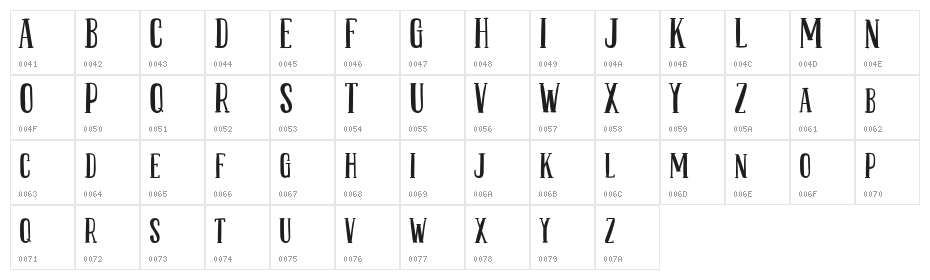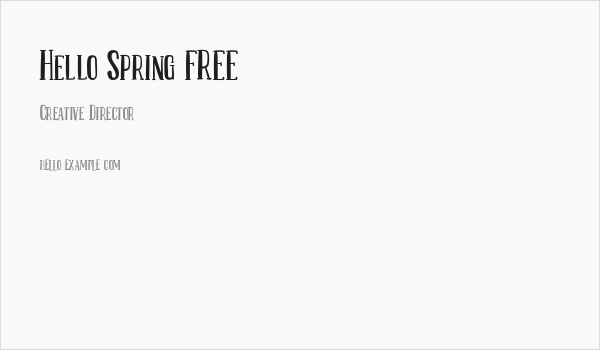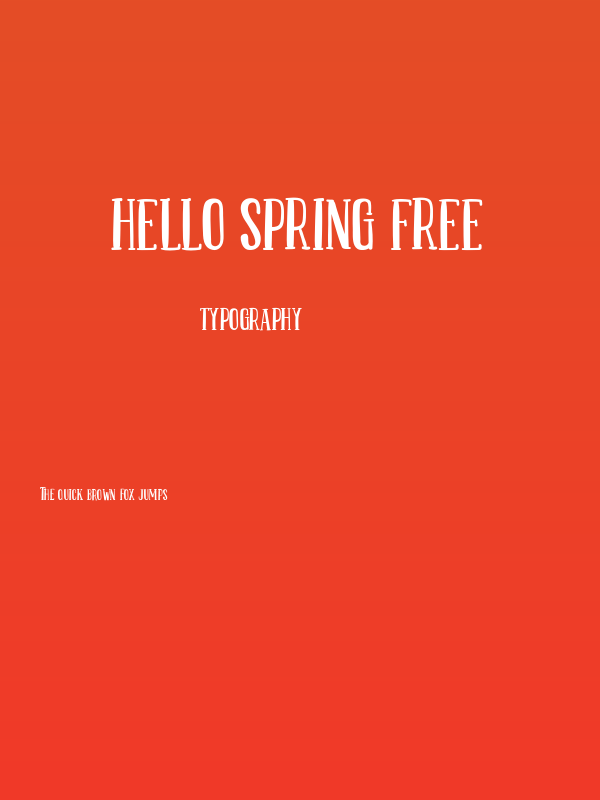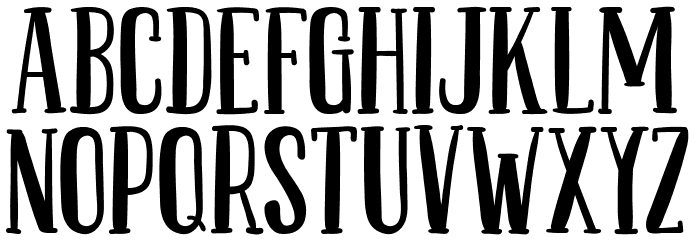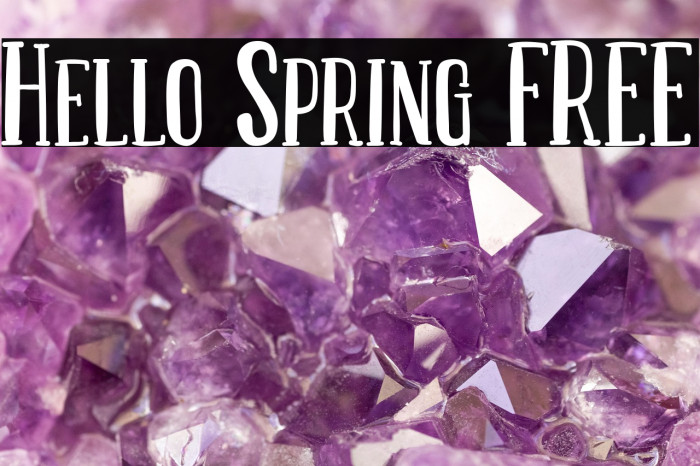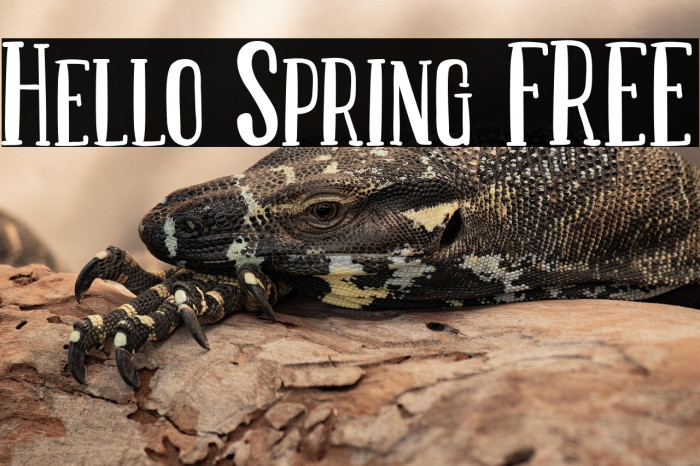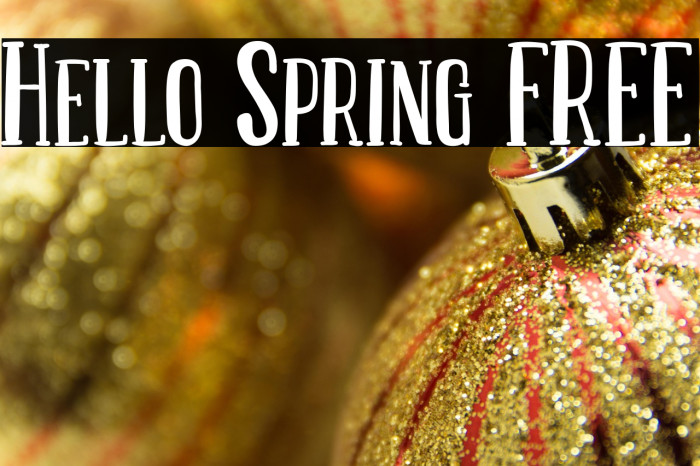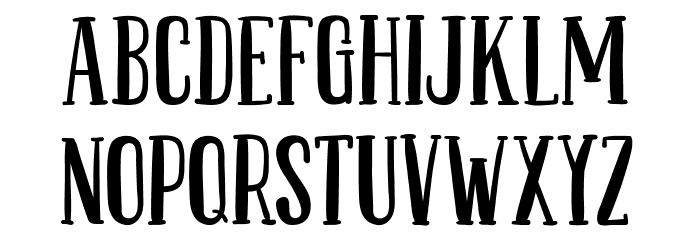
Hello Spring FREE Font
Hello Spring FREE Description
This font features a playful and whimsical design, characterized by its tall, narrow letters with a slight slant, giving it a hand-drawn appearance. The strokes are bold and consistent, with a moderate contrast between thick and thin lines. The overall style is reminiscent of vintage signage, with a touch of modern flair. The characters are evenly spaced, providing a clean and readable look, while the unique curves and angles add a touch of personality. This font is ideal for projects that require a fun and engaging aesthetic, such as greeting cards, posters, or branding materials.
| Overall Style | Vintage, Playful |
| Proposed Projects | Greeting cards, posters, branding materials, invitations, and playful signage. |